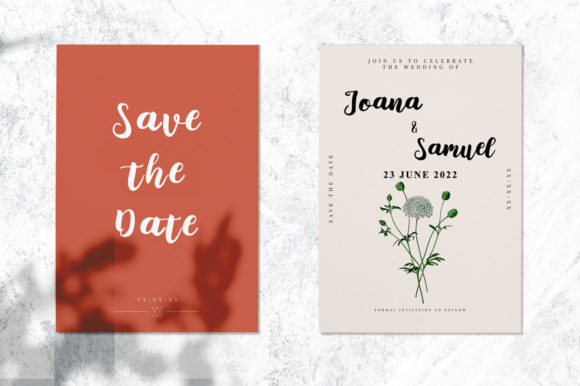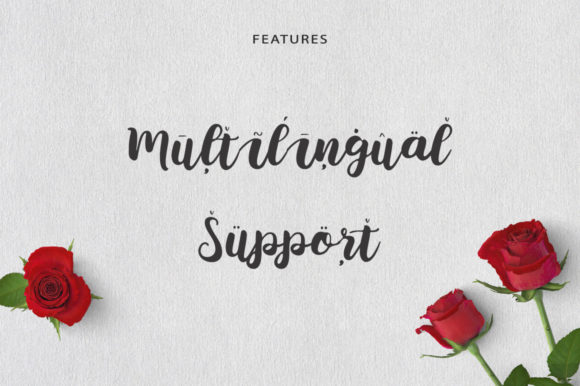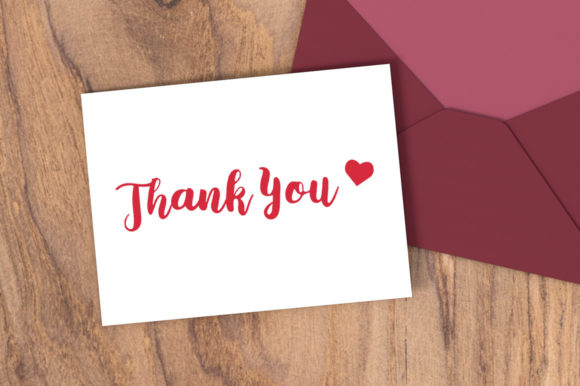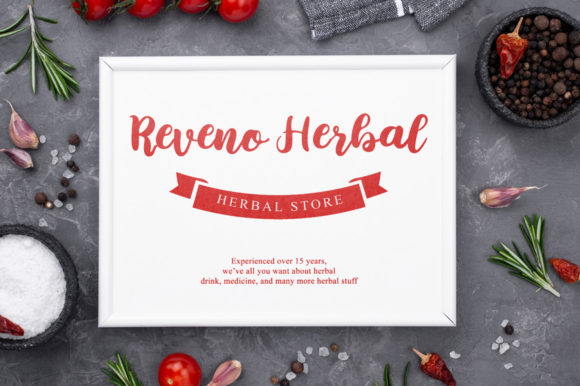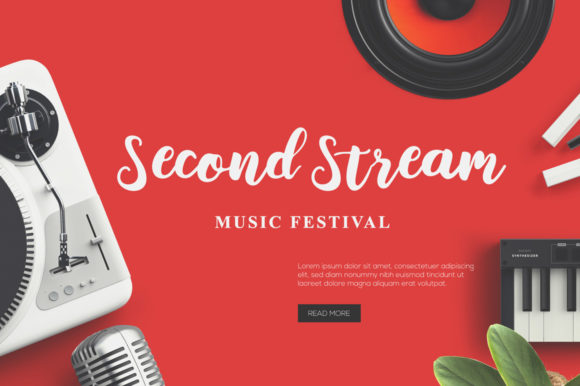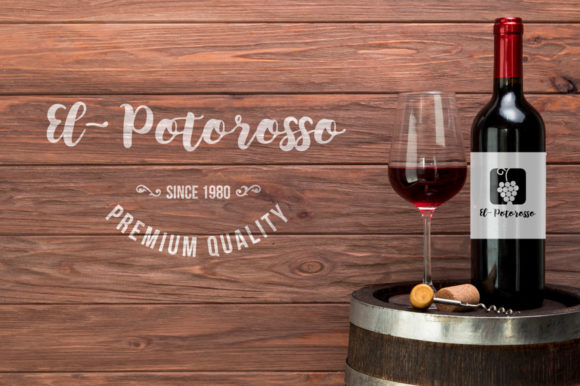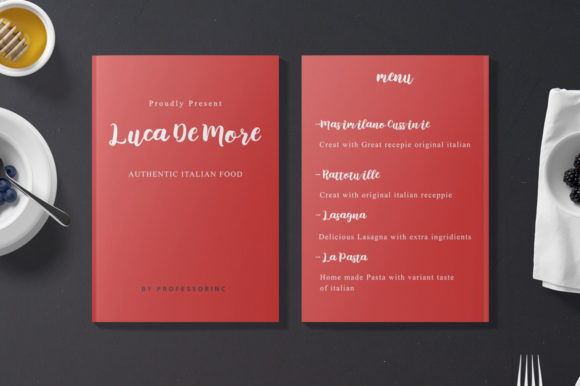
Belamona Font
About Belamona Font
Belamona is a delicate and sweet calligraphy typeface with characters that dance along the baseline. It will add a luxury spark to any design project that you wish to create!